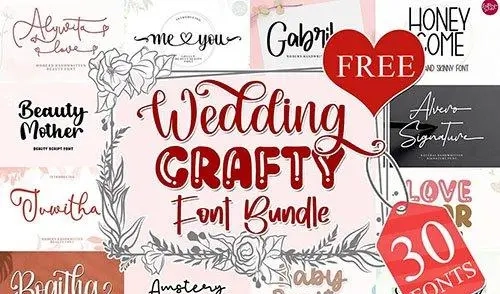
Introducing the Wedding & Crafty Font Bundle, a carefully curated collection of elegant and versatile fonts perfect for all your wedding and crafting projects. This bundle features a variety of font styles, including script, serif, and sans-serif, allowing you to find the perfect typeface for any occasion.
- Multiple font styles: script, serif, and sans-serif
- Various weights for added versatility
Each font in this bundle is designed with attention to detail, ensuring readability and aesthetic appeal. The script fonts offer a romantic touch, ideal for wedding invitations, while the serif and sans-serif fonts provide a clean and modern look for crafting projects.
- Utilize script fonts for elegant invitations and signage.
- Combine serif and sans-serif fonts for a balanced layout in your projects.
- Experiment with different weights to create visual hierarchy.